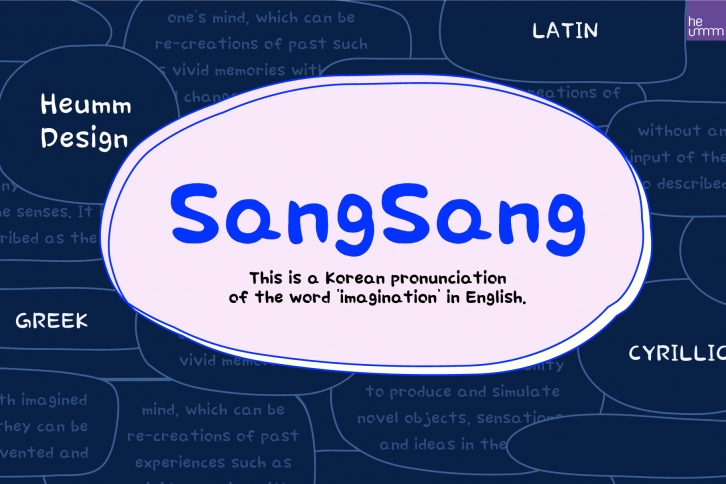
HU Sangsang is a cool, paint brushed handwritten font. It is suitable for logotype, headline font, in corporate identity, brand identity, apparel industry, poster, music, movie, game, magazine, book, comic, cartoon, YouTube, Instagram, website, or any of your creative design projects.